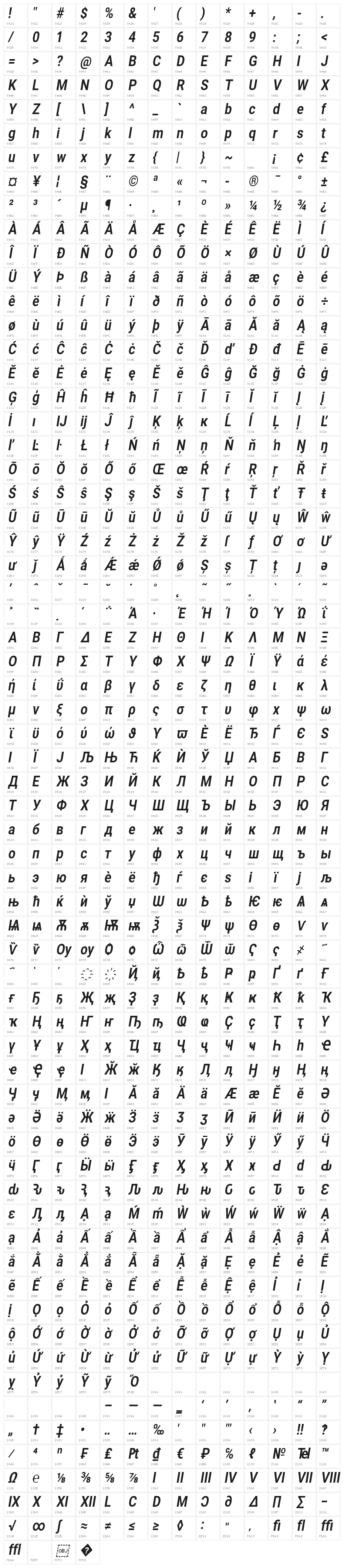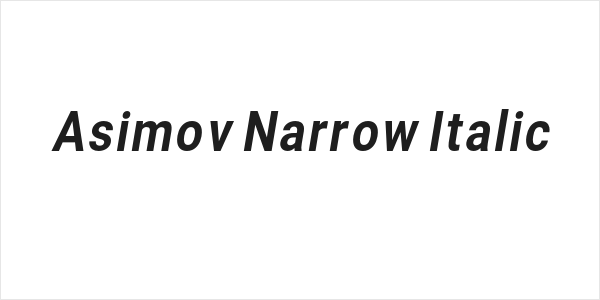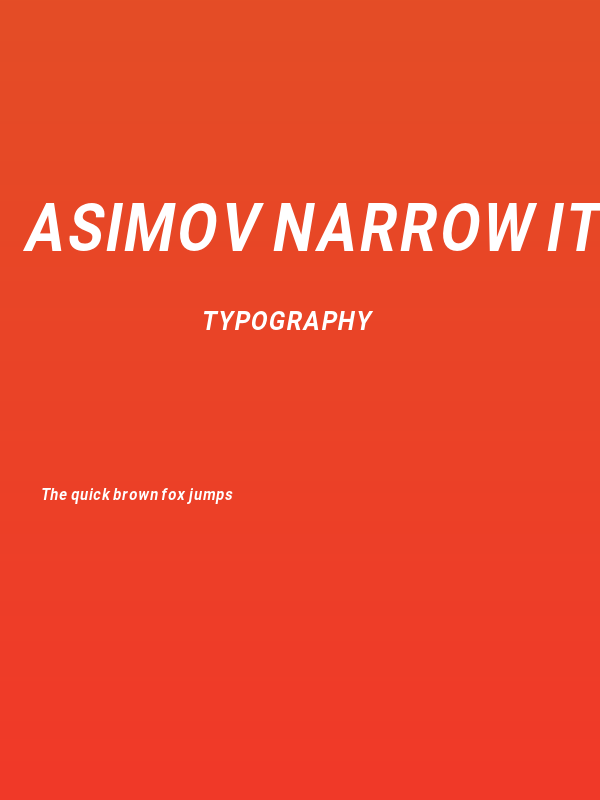
Asimov Narrow Italic Font
Asimov Narrow Italic Description
This font features a sleek and modern design with a narrow and italicized style. The characters are slightly condensed, giving it a streamlined appearance that is both elegant and contemporary. The strokes are consistent in weight, providing a uniform look across all characters. The italic slant adds a dynamic and forward-moving feel, making it suitable for projects that require a sense of motion or progress. The font maintains a clean and professional aesthetic, making it versatile for various design applications.
| Use Case | Headlines, Logos, Advertising |
| Proposed Projects | Ideal for branding, advertising, and editorial design where a modern and dynamic look is desired. |